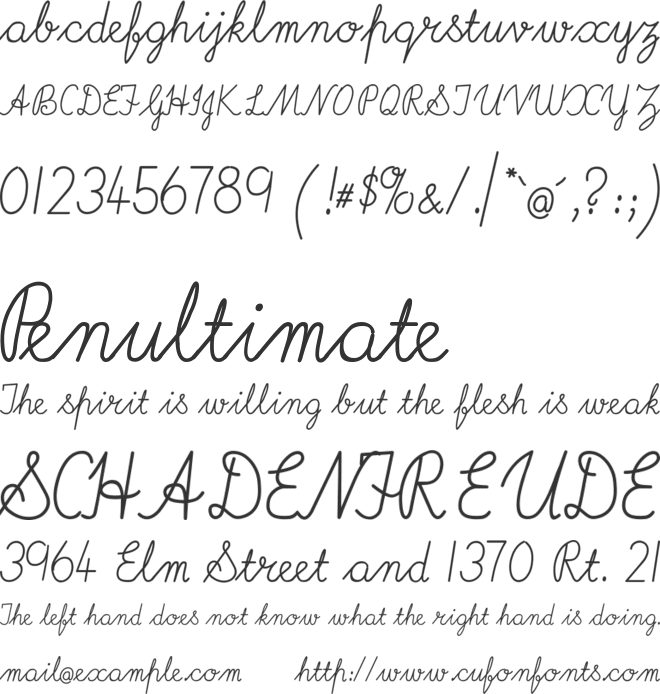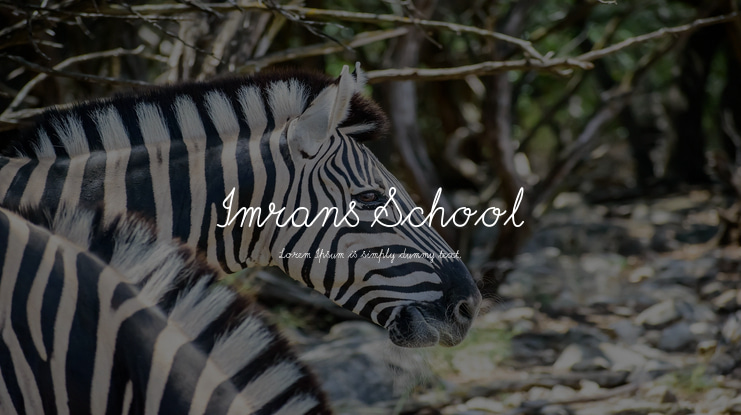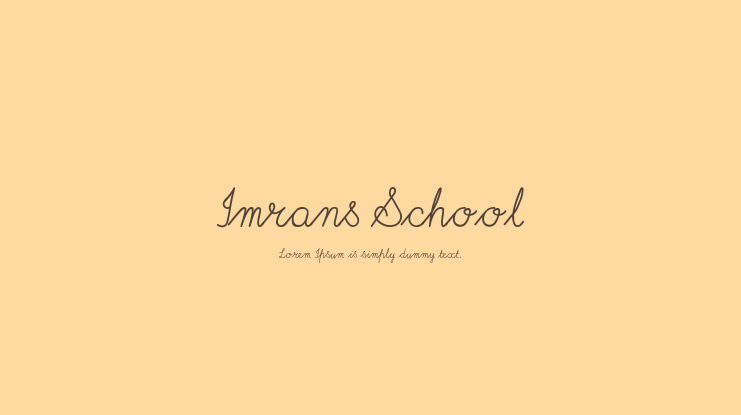
Imrans School Font Family
Peter Wiegel
Google Translate says:Imran School is my support for a Non.Prifit project, textbooks and other teaching materials for schools in the Mumbai area and thus a further my education Schreibschrtiften. In this case, the font should be close anm the pattern used Alfa prayer come close. This of course brings a problem: The letters have two crosspoints, down near the GHrundlinie and above the x-height close to b, o, v and w. I will now tell everyone: But it's gint Open Type "and this is true in principle, but unfortunately, the currently supported almost exclusively with expensive professional software. For the textbook publisher that would certainly OK, but the font should just work on low-cost software without OpenType support, and for that I have just found a trick: You install two fonts, schreiubt first normal marrow profiled some Anfangsbuchstabenm like a, d, g, q, m and n sowier the Buchtaben to b, and w and ov these switches to italic.Copyright (c) 2013 by Peter Wiegel. Open Font under Terms of following Free Software Licenses:GPL (General Public License) with font-exception and OFL (Open Font License